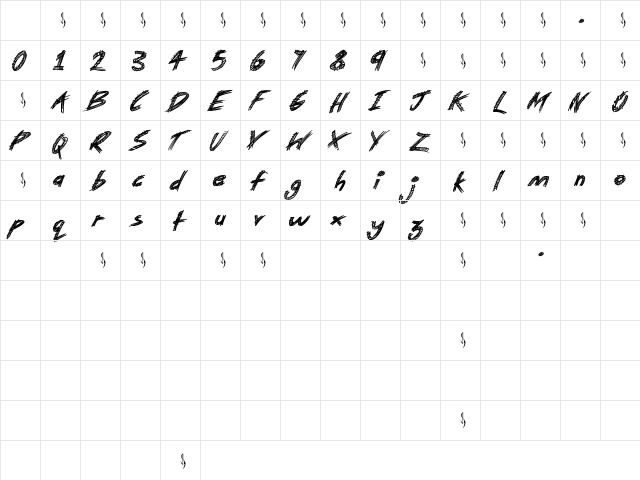
Monster Reading is a composed and adaptable typeface that performs quietly and consistently across a wide range of design contexts.
Who designed the Monster Reading Regular font?
This font was published by JSHcreates. Check the technical specs section for copyright and designer details.